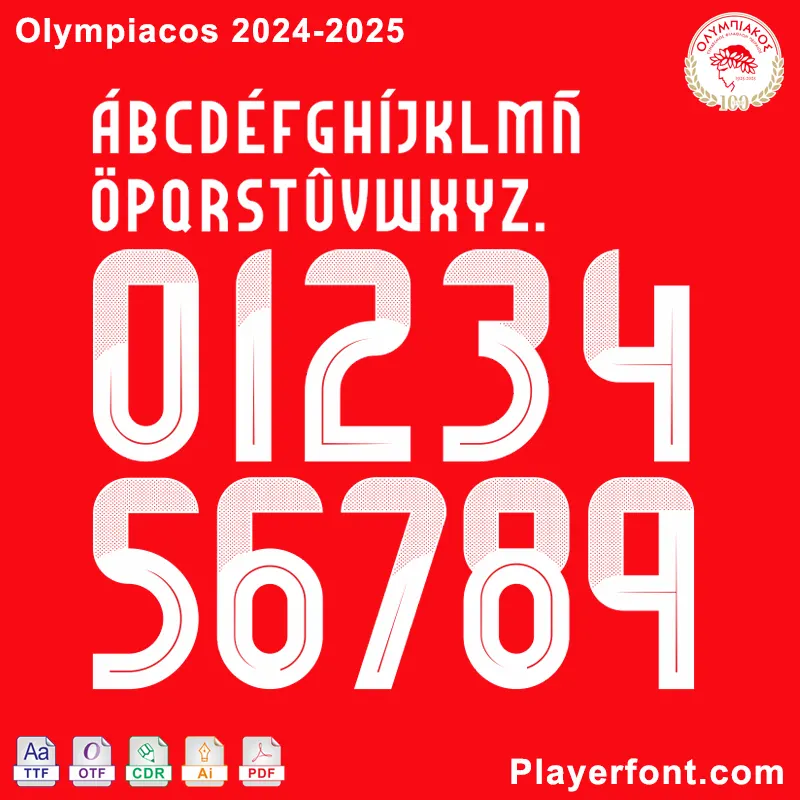
Capture the essence of Olympiacos FC with the Olympiacos 2024-2025 font, the official typography used by the legendary Greek football club this season. Whether you’re a die-hard fan, a creative designer, or someone looking to add a unique touch to your projects, this font is your must-have download for 2024-2025.
Designed to reflect the team’s bold and iconic style, this high-quality font is perfect for creating custom jerseys, posters, digital artwork, or even personal memorabilia. Available for instant download, you’ll have access to the authentic Olympiacos typography in just a few clicks. Compatible with all major design software, it’s easy to use and versatile for any project.